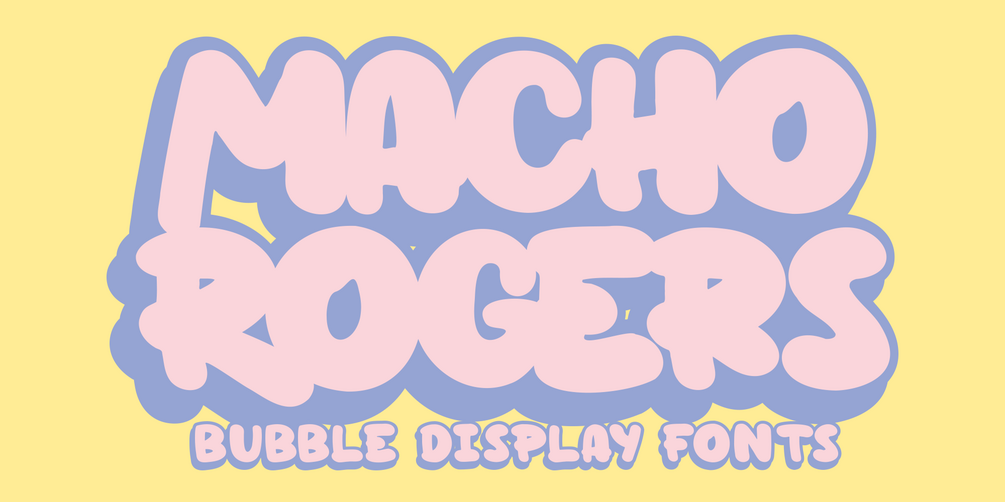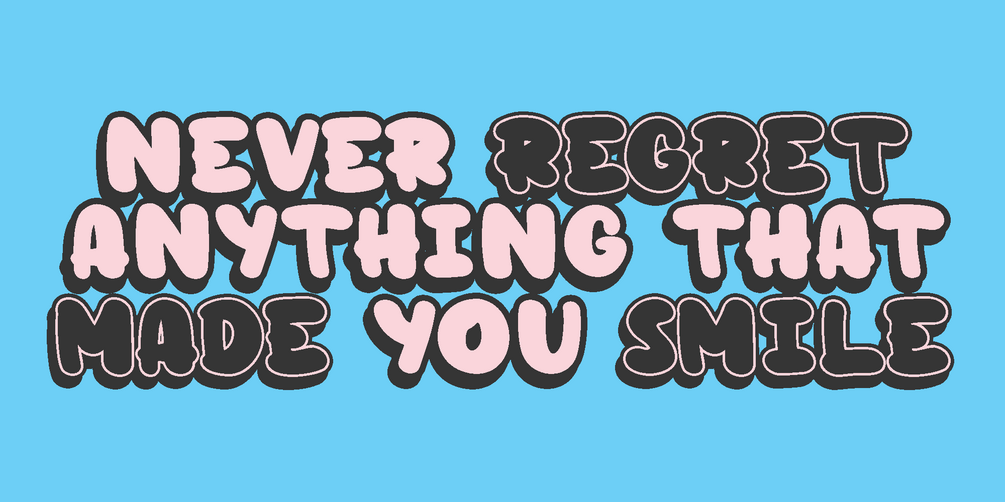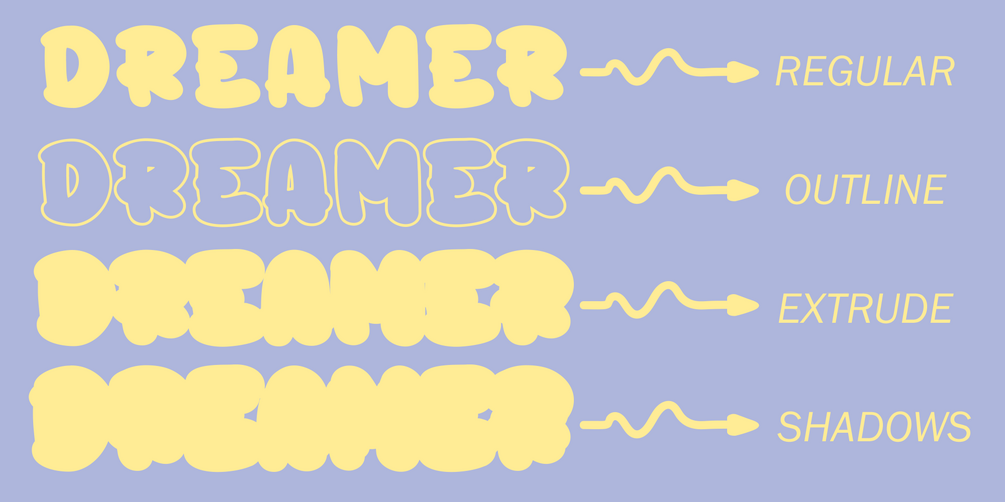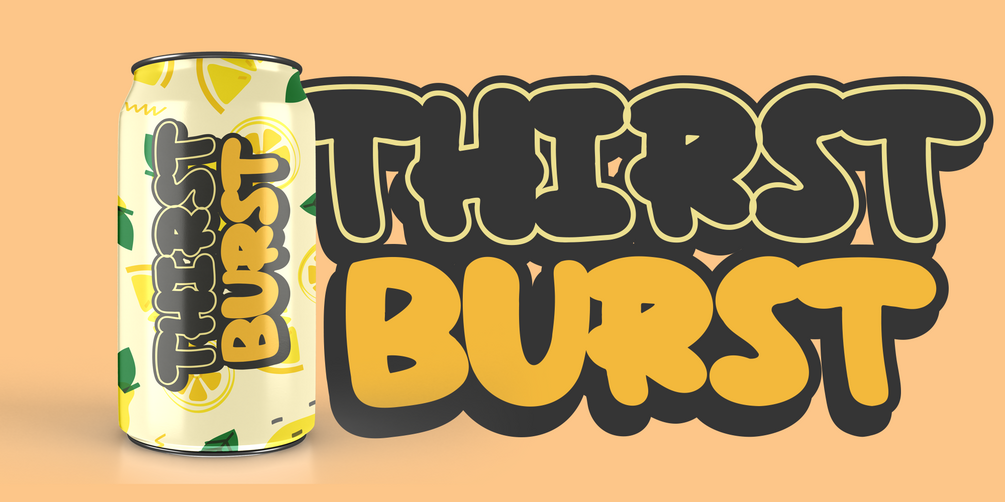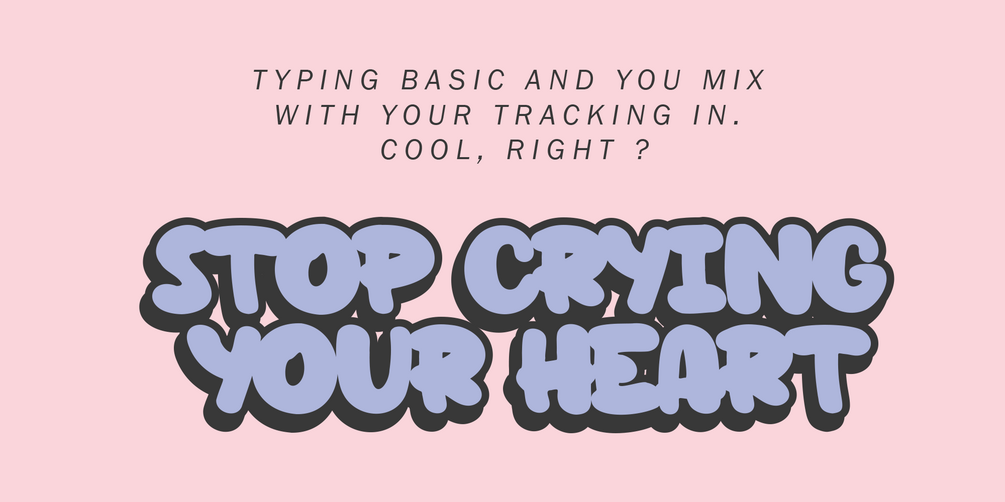
Macho Rogers - Bubble Display Fonts
Introducing the new font, Macho Rogers.
Macho Rogers is a bubble font.
If you tracking this font, this font looks like a graffiti.
Match for your business food, drink, branding design, typography, video motion etc.